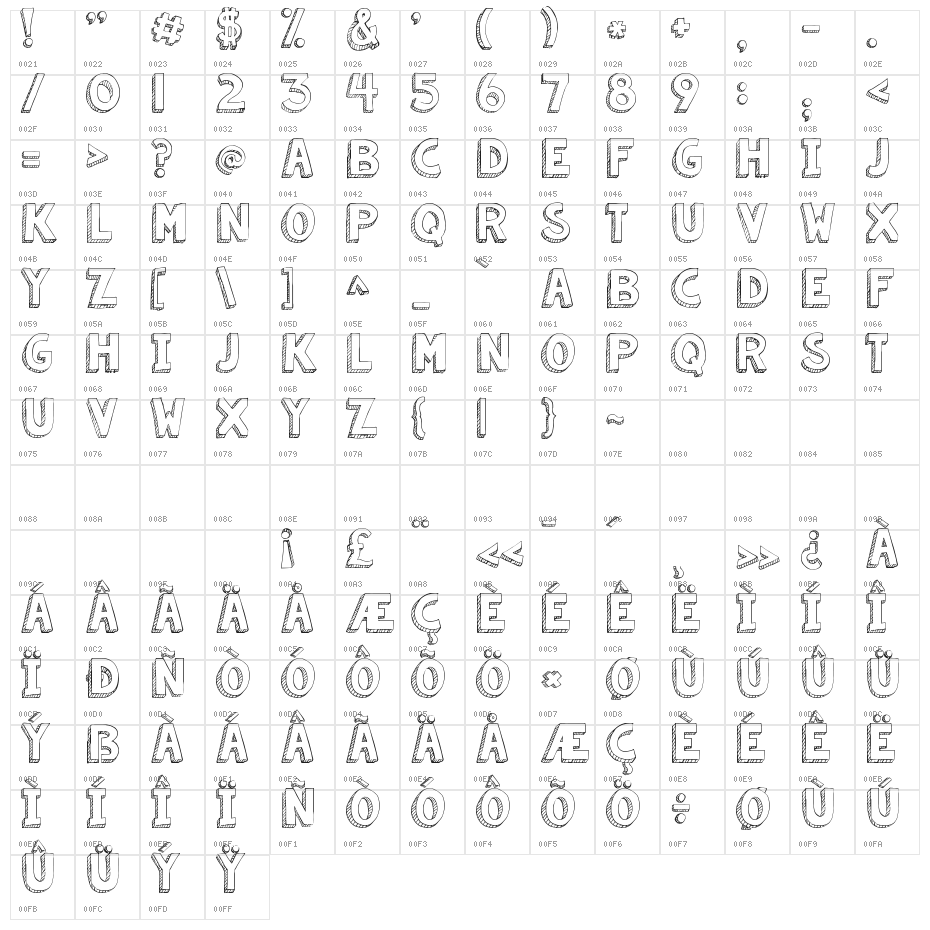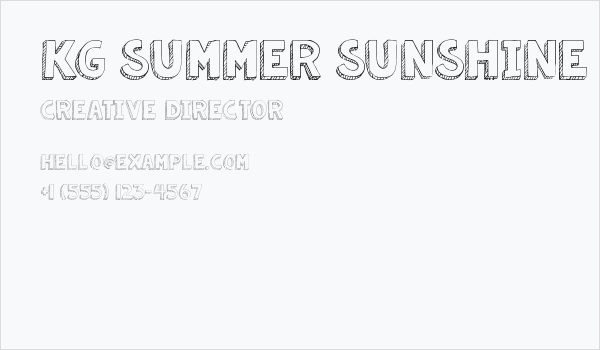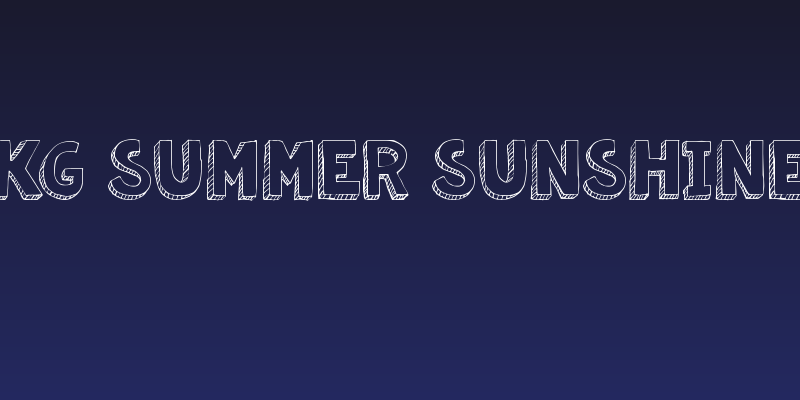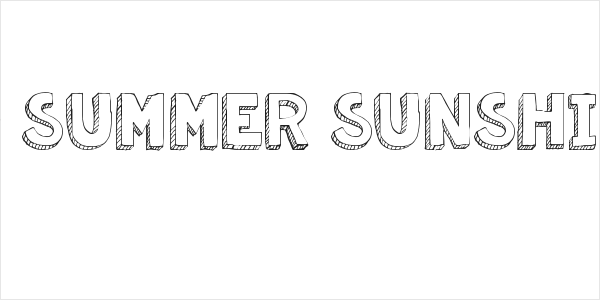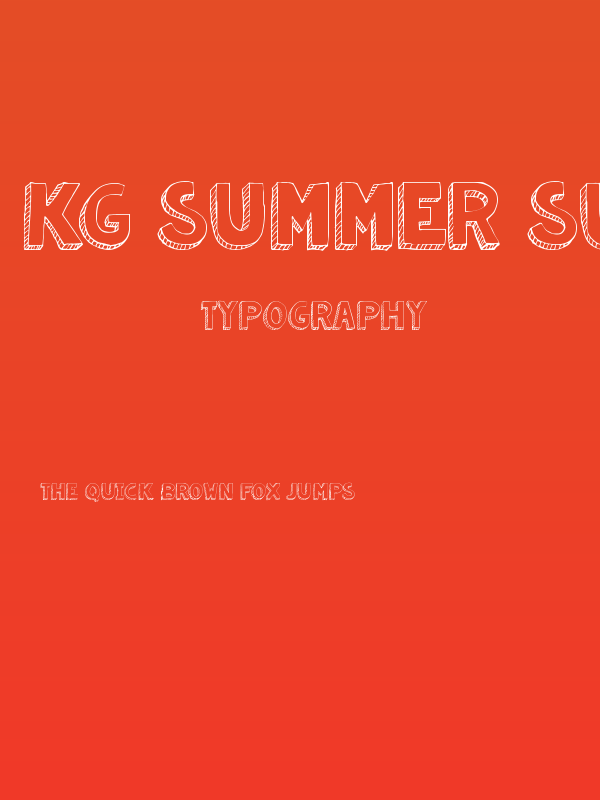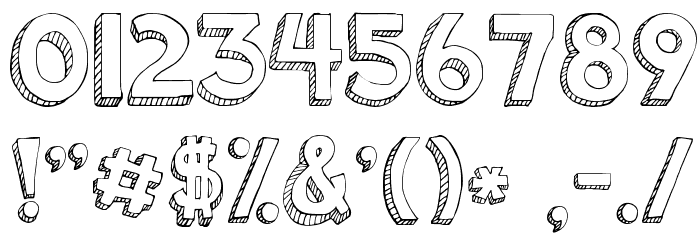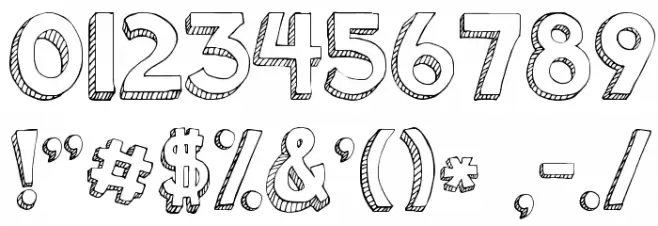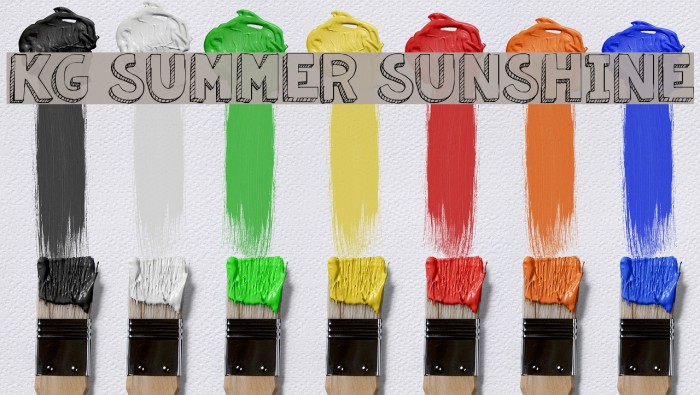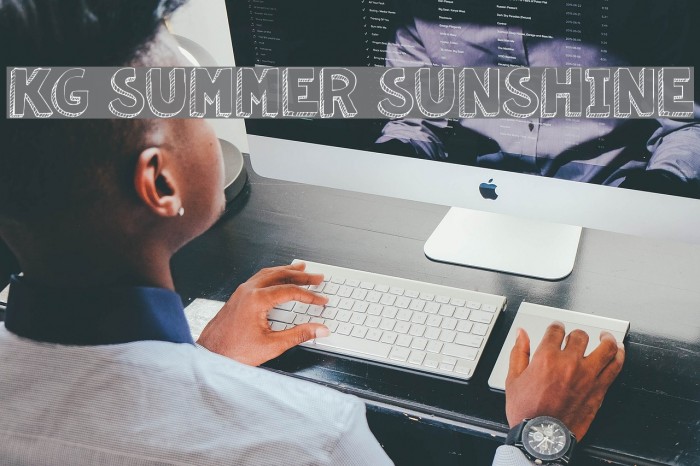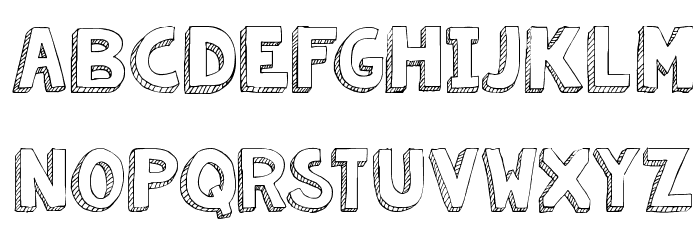
KG Summer Sunshine Font
KG Summer Sunshine Description
This playful and vibrant font features a hand-drawn, sketch-like appearance with a 3D effect. Each character is outlined with a bold line and filled with diagonal hatching, giving it a textured and dynamic look. The uppercase and lowercase letters maintain a consistent style, with rounded edges and a slightly whimsical feel. The numerals and special characters follow the same design, ensuring uniformity across all elements. This font exudes a sense of fun and creativity, making it ideal for projects that require a lively and informal touch.
| Proposed Projects | Ideal for children's books, playful posters, greeting cards, and creative branding. |